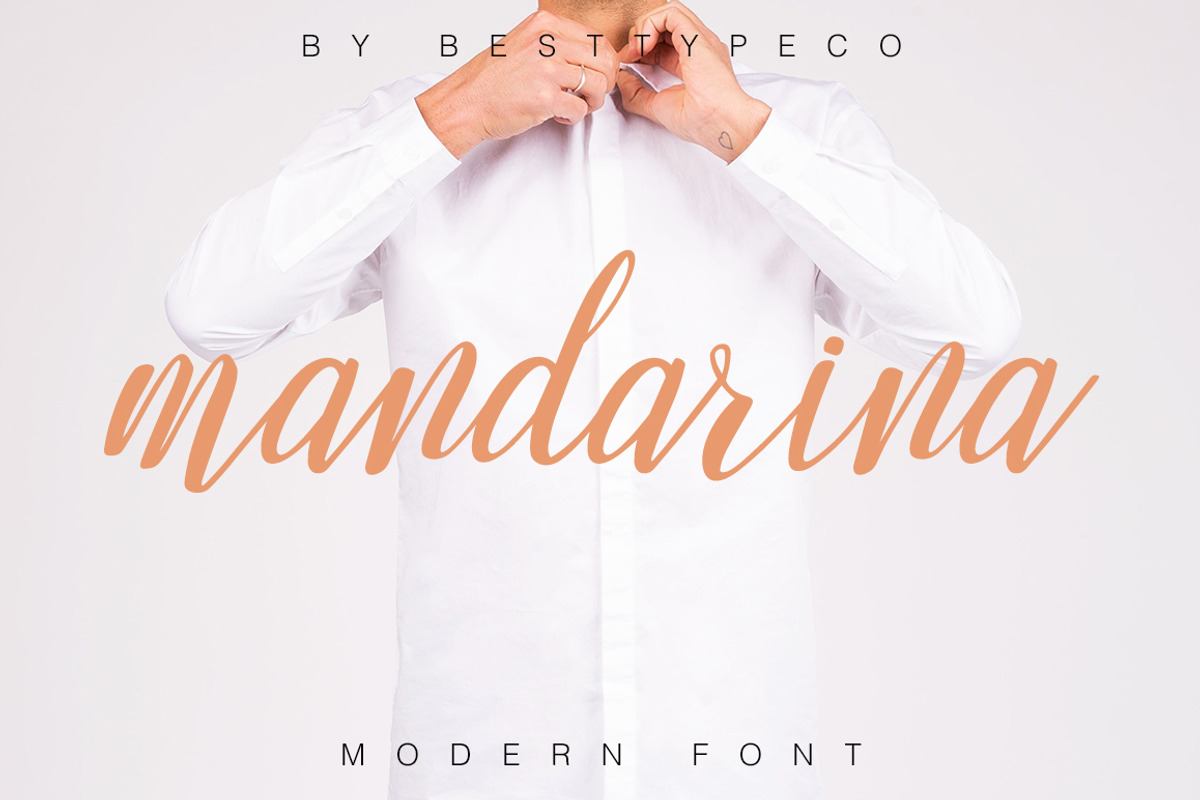
You must purchase this font for commercial use. However, you can download Mandarina Font Free Download for testing purposes. Mandarina is an elegant and sophisticated script font designed to bring a touch of luxury and charm to your projects. With its flowing curves and beautifully crafted letterforms, this font is ideal for creating wedding invitations, branding, logos, greeting cards, and other high-end designs.
The graceful, calligraphy-inspired design of Mandarina makes it perfect for projects that require an artistic, refined, and romantic touch. Whether you're designing for a luxury brand, creating a personal invitation suite, or developing an elegant logo, this font will add a timeless, stylish feel to your typography.